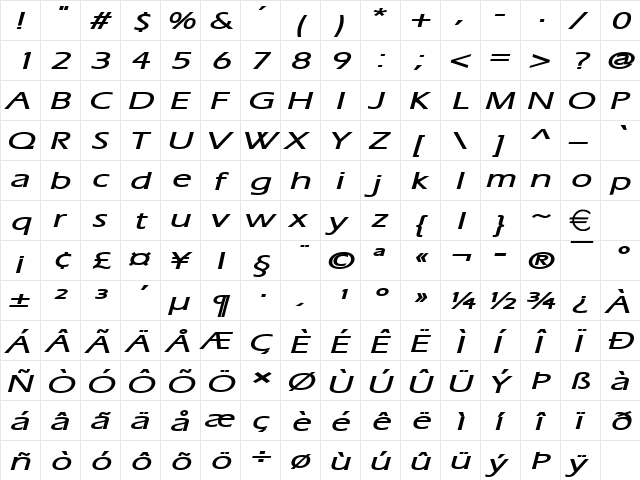
EricExtended BoldItalic Font Preview
Design Context for EricExtended Typeface
EricExtended takes a measured approach to typography — its balanced proportions and neutral character make it a reliable workhorse for both digital and print work. The dynamic lean of this cut emphasises speed and emphasis in any layout. The heavy weight commands attention and anchors typographic hierarchies.
Pro Tip: Try EricExtended for annotation and caption copy alongside an upright companion — the contrast in angle creates a dynamic but ordered typographic system.